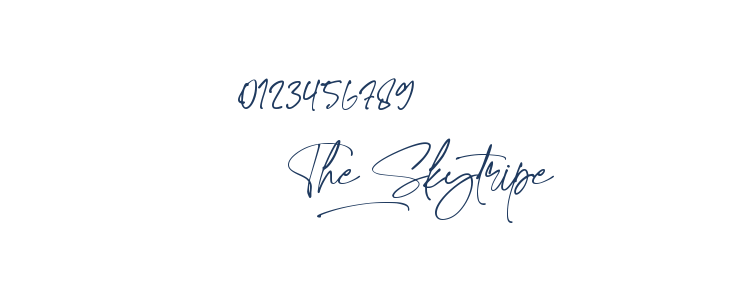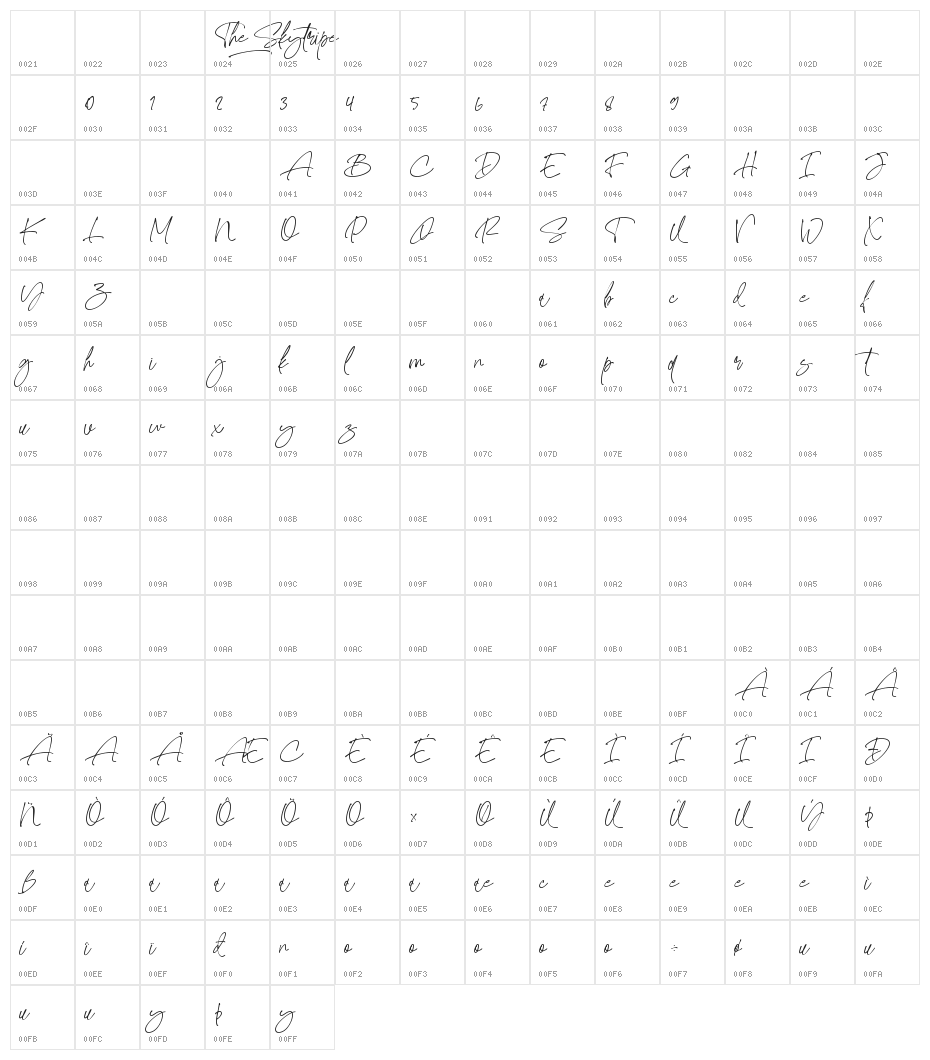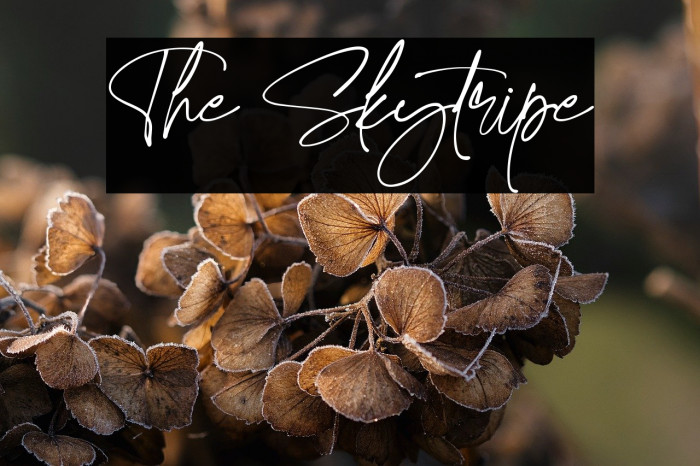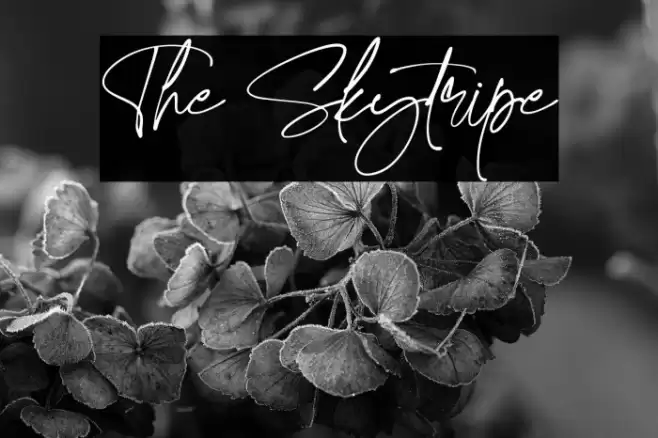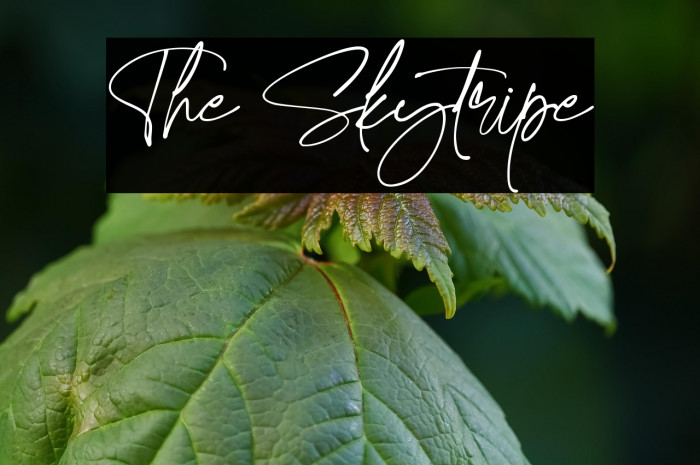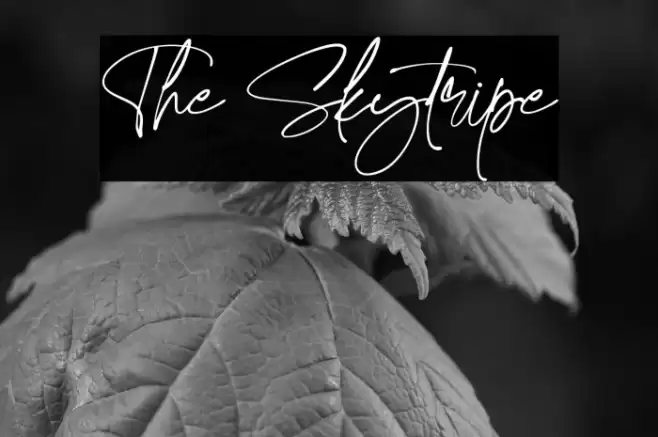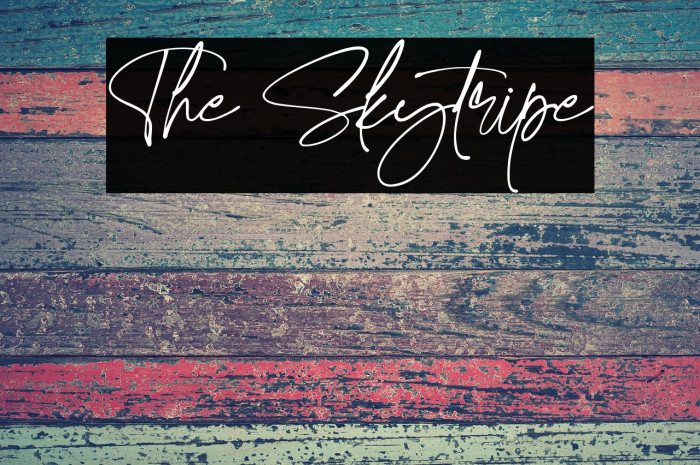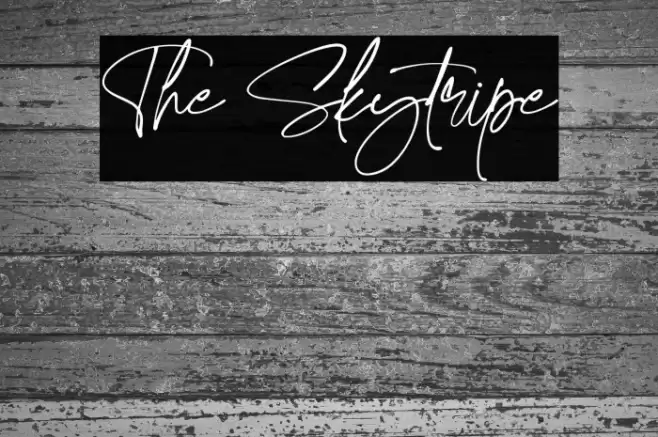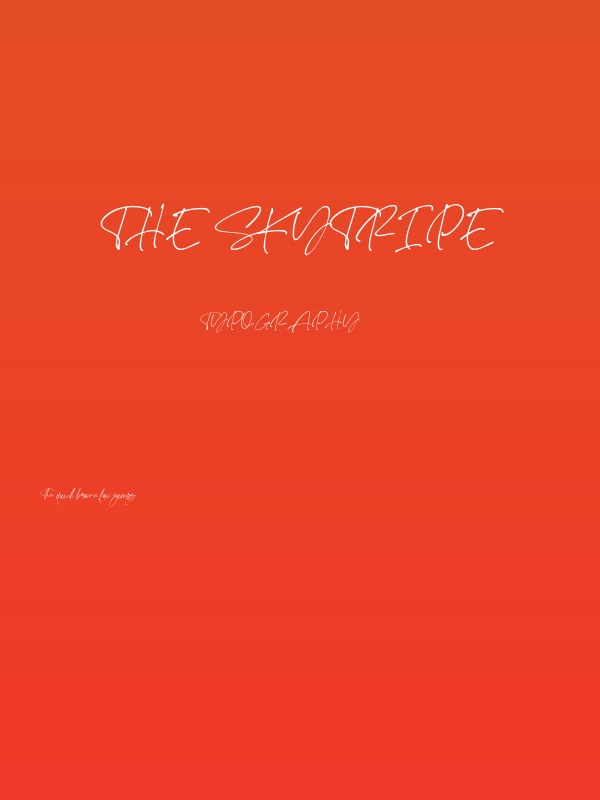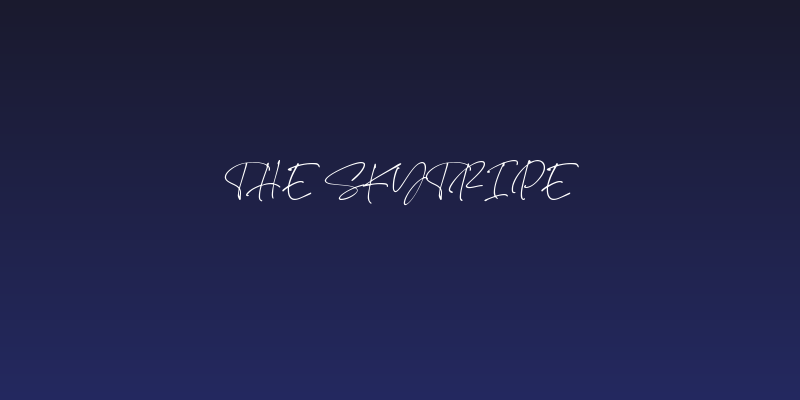
The Skytripe Font
The Skytripe Description
This font features an elegant and flowing script style, characterized by its cursive, handwritten appearance. The letters are connected smoothly, creating a sense of continuity and grace. The strokes are thin and delicate, giving it a refined and sophisticated look. The uppercase letters are slightly more elaborate, with decorative loops and swirls, while the lowercase letters maintain a consistent flow. Numbers and special characters are designed to match the overall aesthetic, ensuring a cohesive appearance across all text. This font is ideal for projects that require a personal touch or a sense of elegance.
| Proposed Projects | Ideal for wedding invitations, greeting cards, personal branding, and elegant logos. |